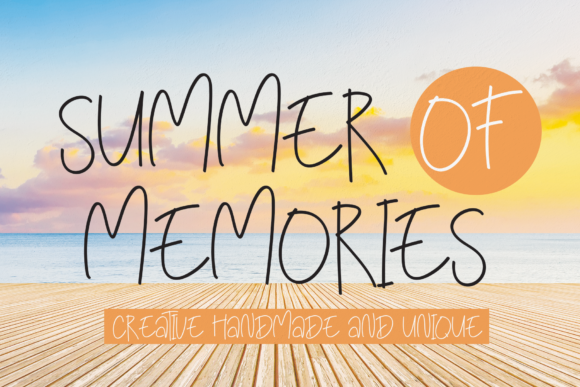
About Summer of Memories Font
Summer of memories is the perfect script font for your next creative project! It has slim and neat characters and a really stylish look that can take any creation to the highest levels!